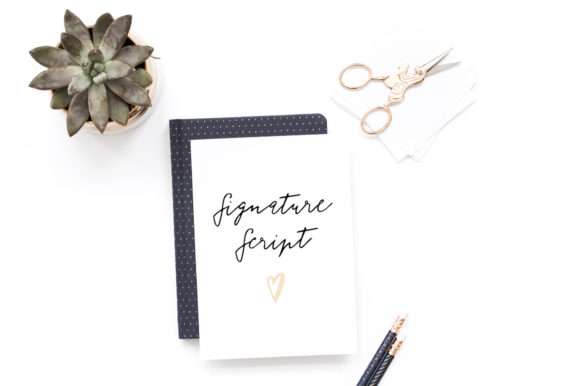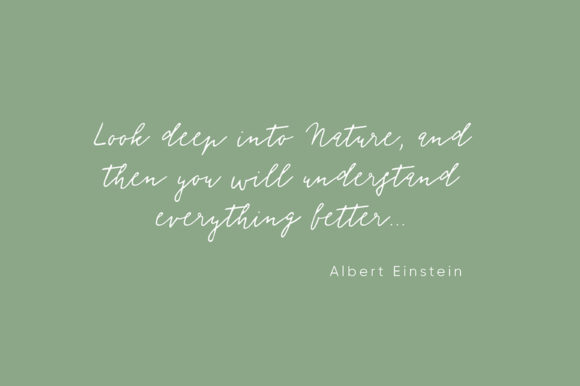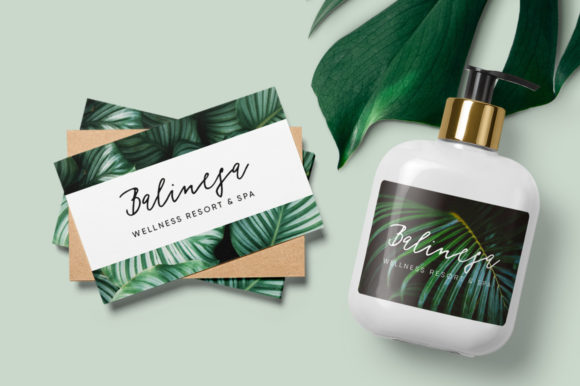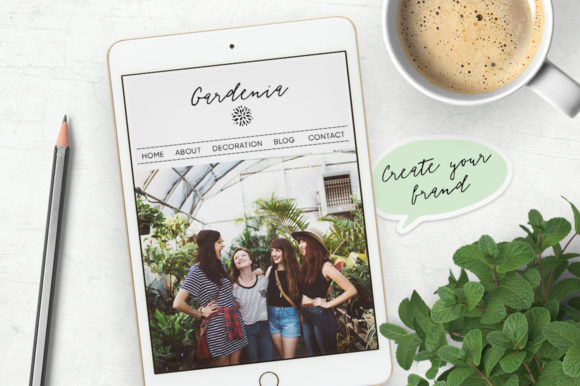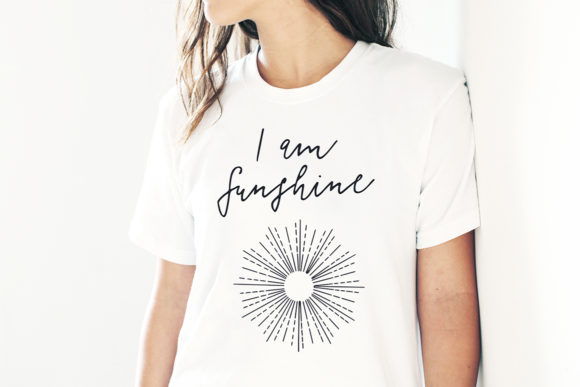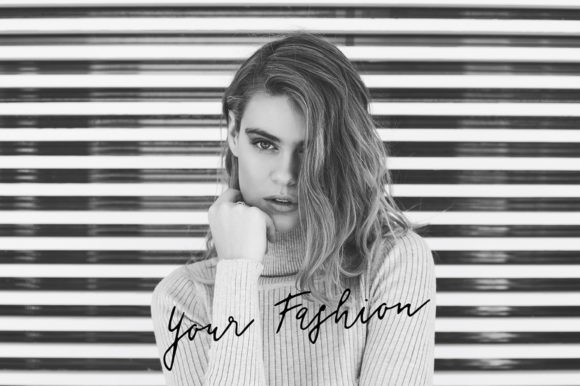
Discover the Beauty of Florisa Font: Elevate Your Designs with a Hand-Lettered Monoline Signature Script
Are you looking for a font that can add a touch of elegance and sophistication to your designs? Look no further than the Florisa Font, an amazing hand-lettered monoline signature script that is sure to take your work to the next level. With its artistic and natural handmade feel, Florisa Font is perfect for designers and crafters who want to create stunning visual content that stands out from the crowd.
What is Florisa Font?
Florisa Font is a beautifully crafted hand-lettered monoline signature script that is designed to give your work a unique and personalized touch. Its monoline style, characterized by lines of consistent width, creates a sense of fluidity and movement, making it perfect for a variety of design applications. Whether you’re working on branding, logos, blog posts, wedding announcements, greeting cards, invitations, or any other project, Florisa Font is sure to add a touch of elegance and sophistication.
Key Features of Florisa Font
- Hand-lettered monoline signature script: Florisa Font is a carefully crafted font that is designed to mimic the look and feel of hand-lettered script.
- Artistic and natural handmade feel: With its unique and personalized style, Florisa Font adds a touch of warmth and personality to your designs.
- Perfect for a variety of design applications: From branding and logos to wedding announcements and greeting cards, Florisa Font is versatile and can be used for a wide range of projects.
- Elegant and sophisticated: Florisa Font is designed to add a touch of elegance and sophistication to your designs, making it perfect for designers and crafters who want to create high-end visual content.
Why Choose Florisa Font?
There are many fonts available that can add a touch of elegance and sophistication to your designs, but Florisa Font stands out from the crowd. Here are just a few reasons why:
- Unique and personalized style: Florisa Font is a one-of-a-kind font that is designed to add a touch of personality to your designs.
- High-quality design: Florisa Font is carefully crafted to ensure that it is of the highest quality, with clean lines and precise lettering.
- Versatile: Florisa Font can be used for a wide range of design applications, making it a great addition to any designer’s toolkit.
Tips and Tricks for Getting the Most Out of Florisa Font
Here are just a few tips and tricks for getting the most out of Florisa Font:
- Experiment with different colors and textures: Florisa Font looks great in a variety of colors and textures, so don’t be afraid to experiment and find the look that works best for your design.
- Use it for headlines and titles: Florisa Font is perfect for headlines and titles, where its elegant and sophisticated style can really shine.
- Pair it with other fonts: Florisa Font pairs well with a variety of other fonts, so don’t be afraid to experiment and find the perfect combination for your design.
In conclusion, Florisa Font is an amazing hand-lettered monoline signature script that is sure to elevate your designs to the next level. With its artistic and natural handmade feel, Florisa Font is perfect for designers and crafters who want to create stunning visual content that stands out from the crowd. Whether you’re working on branding, logos, blog posts, wedding announcements, greeting cards, invitations, or any other project, Florisa Font is a great choice. So why wait? Download Florisa Font today and start creating beautiful, elegant, and sophisticated designs that will leave a lasting impression.